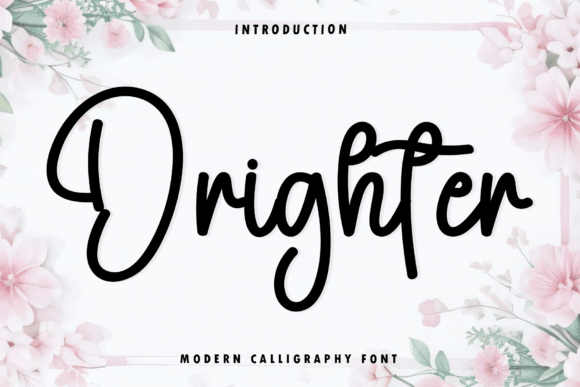
Unlocking the Art of Modern Elegance: Introducing Drighter Font
There’s something magical about watching a skilled artist bring a blank canvas to life with the stroke of a pen. As the lines flow effortlessly onto the paper, a world of emotion and character begins to emerge. For designers seeking to infuse their work with that same level of sophistication and personality, the quest for the perfect font is a constant pursuit.
Enter Drighter Font, a “new style” handwritten script font that embodies the essence of modern elegance. Crafted to evoke a sense of refinement and luxury, Drighter Font features a delicate balance of tall ascenders and sweeping loops that create a rhythmic and sophisticated visual flow. Whether you’re working on high-end editorial content, wedding stationery, or luxury branding, this font is sure to elevate your designs and leave a lasting impression.
- Unique Characteristics: The font features a distinctive, modern design with a friendly and approachable feel, making it perfect for use in a variety of contexts, including corporate communications, advertising, and editorial content.
- Font Metrics: The font has been carefully crafted to ensure optimal readability, with features such as x-height, stem width, and cap height carefully balanced to create a harmonious and visually appealing design.
Drighter Font Review
I recently had the chance to work with the Drighter Font, and I’m excited to share my honest review with you. ✨ One of the things that really stands out about this font is its modern and sleek aesthetic. It’s perfect for designing clean and minimalist interfaces, and it’s definitely a great choice for anyone looking to create a professional and sophisticated look.
- Highly legible, even at small font sizes
- Works well in both digital and print formats
- Great for designing logos, headings, and body text
However, I do have a few criticisms. ⚠️ The font can feel a bit generic at times, which may make it harder to differentiate your design from others. Additionally, the font is not as customizable as I would have liked, which can limit its versatility.
Overall, I think the Drighter Font is a solid choice for designers who are looking for a clean and modern aesthetic. While it may not be the most unique or customizable font out there, it’s definitely worth considering for any project that requires a professional and sophisticated look.
Getting the Most Out of Drighter Font
Here are some tips for getting the most out of Drighter Font:
- Use Drighter Font for titles and headings to create a bold and eye-catching effect.
- Pair Drighter Font with a serif or sans-serif font for body text to create a clean and modern look.
- Experiment with different font sizes and colors to create visual interest and hierarchy.